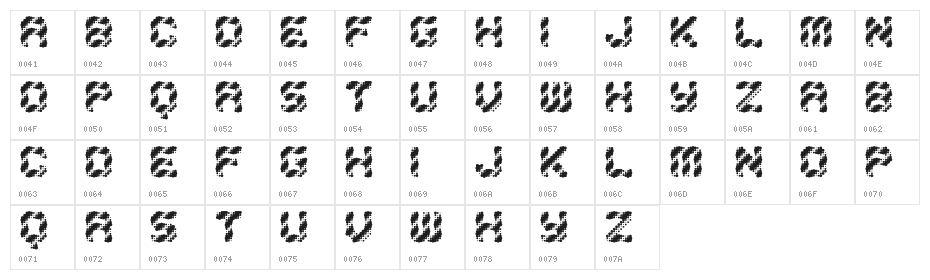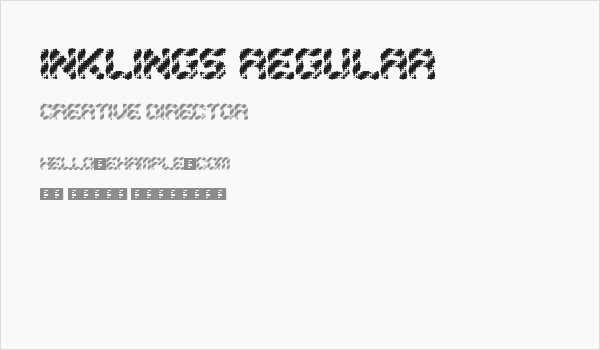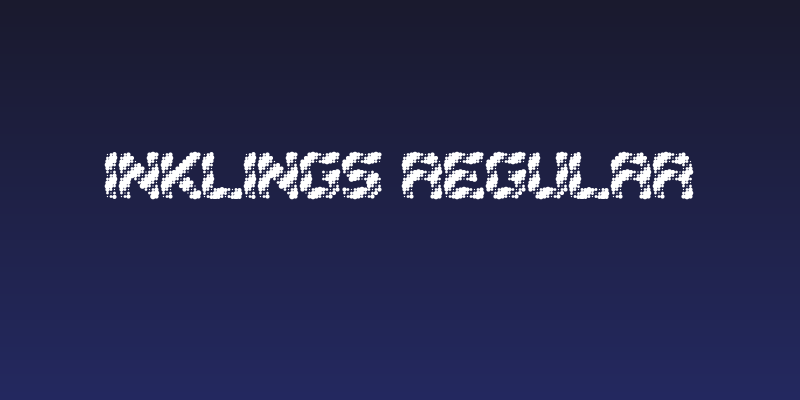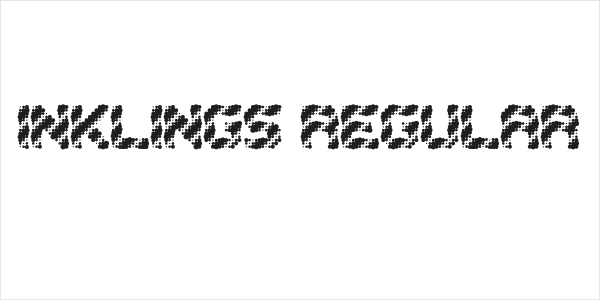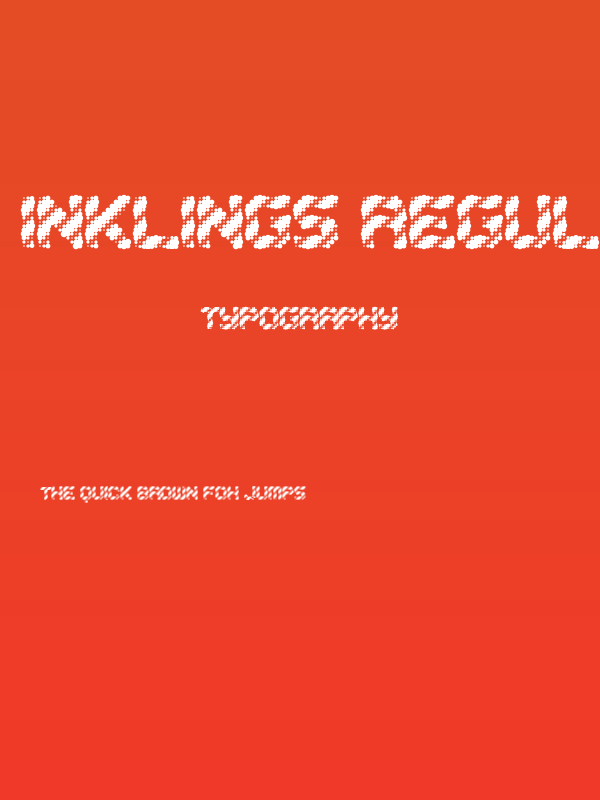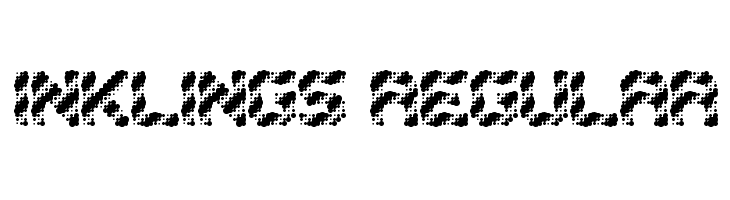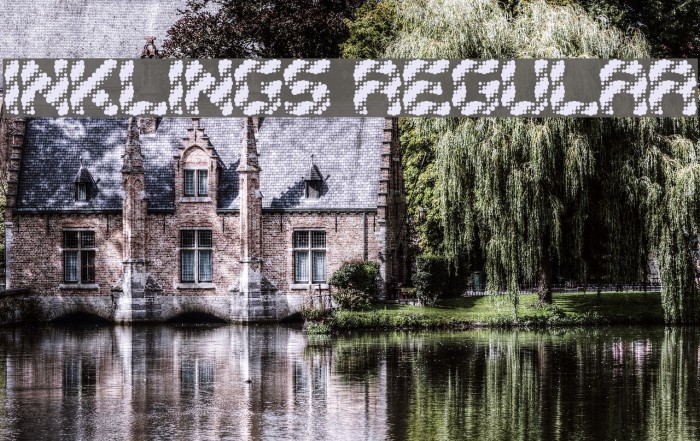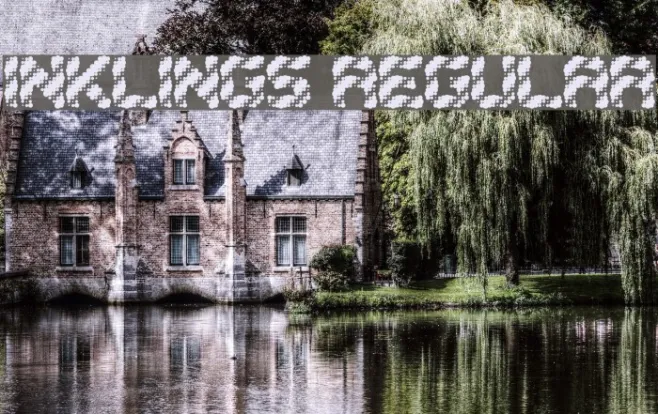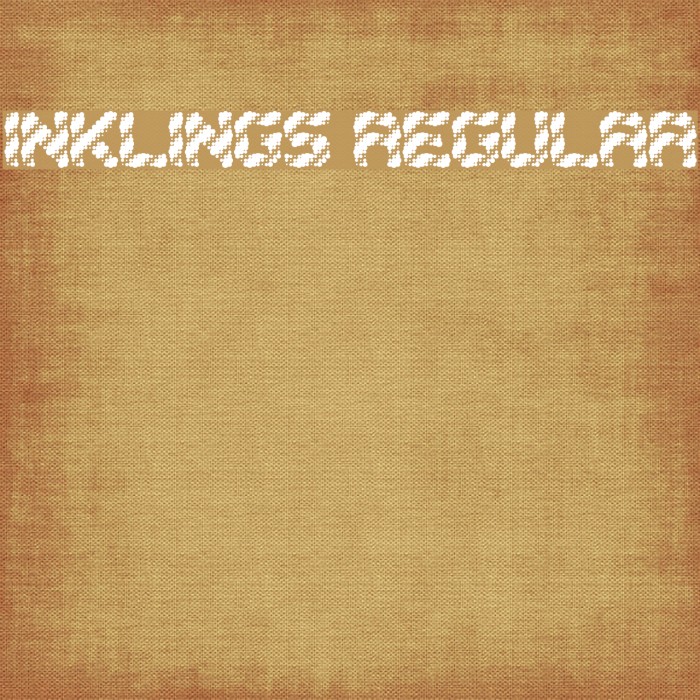
Inklings Regular Font
Inklings Regular Description
This font features a unique, textured appearance that resembles ink splatters or a stippling effect. Each character is composed of small, irregular dots that create a sense of movement and dynamism. The uppercase and lowercase letters maintain a consistent style, with rounded edges and a playful, artistic flair. The numbers and special characters follow the same design, ensuring a cohesive look across all elements. This font stands out with its decorative and eye-catching style, making it ideal for creative projects.
| Proposed Projects | Ideal for artistic projects, posters, album covers, and any design requiring a creative and dynamic touch. |